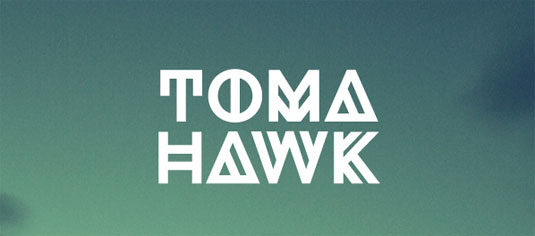
Font of the day: Tomahawk
Tomahawk by Tommy Larsen
Norwegian graphic designer Tommy Larsen loves a good font. Often experimenting with a variety of styles, his outputs are always intriguing. Tomahawk is inspired by one of his previous fonts Dia - which is also availbale as a free download!
Being from Norway, the Tomahawk font also includes the Norwegian characters - Æ, Ø and Å. It's one for headline and larger uses, as it only comes in upper case lettering.